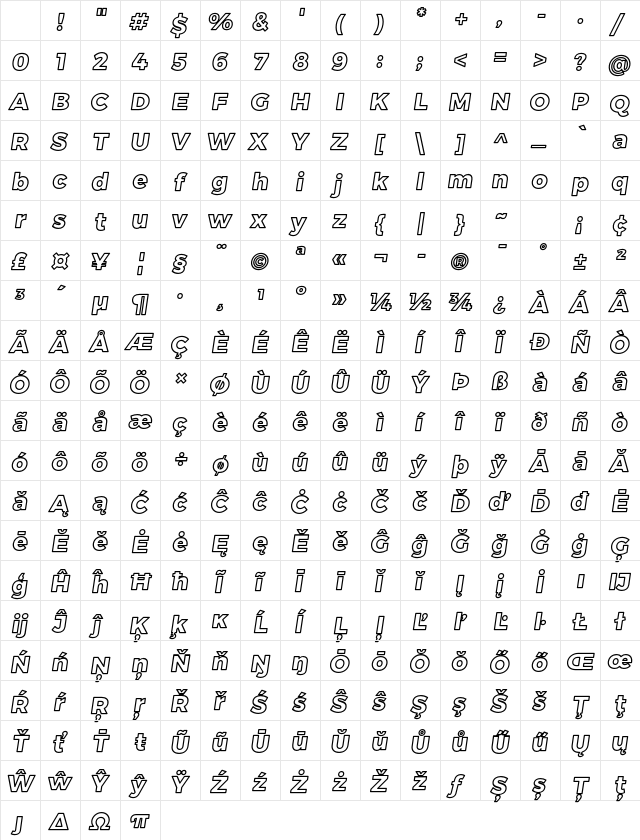
Complete Trueno ExtraBold Outline Italic glyph index. Displaying only characters natively supported by Trueno ExtraBold Outline Italic font.
Trueno is built around its visual character rather than neutral utility - its distinctive forms are designed to make an impression at display sizes. The slanted form adds forward momentum and visual energy. Its bold stroke weight gives it real presence on the page.
Font Pairing: Pair with a clean neutral sans-serif for body copy to let Trueno's character lead without overwhelming the composition.
Pro Tip: Use Trueno exclusively at display sizes - it was designed to be seen, not read at length. Let a neutral companion handle body copy.